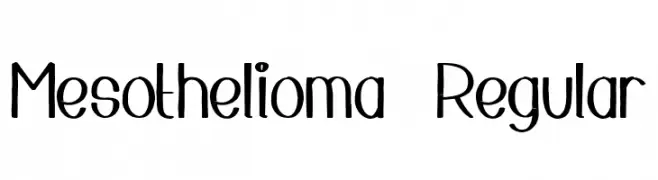
A playful, modern font with bold, slightly condensed uppercase letters and dynamic lowercase letters.
A playful handwritten font with a modern, casual style.